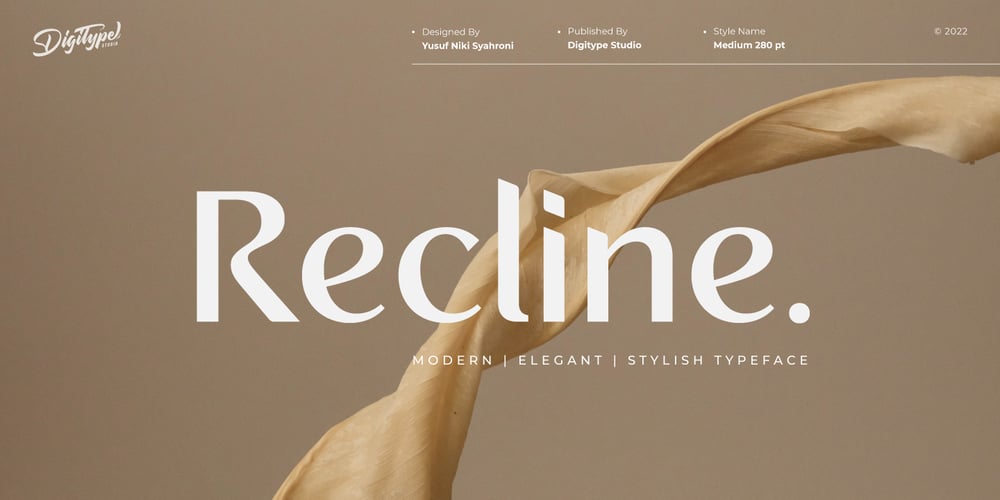
Recline Font Family was designed by Yusuf Niky Syahroni and published by Digitype Studio. Recline contains 10 styles and family package options. Recline comes in a modern style featuring 10 weights, 5 straight & angled, making it easy to adapt to your design. An elegant typeface, Recline is perfect for corporate identities, websites, publishing, titles, books, magazines, business cards, logos, product labels, packaging, or any kind of advertising purpose.Thanks for watching